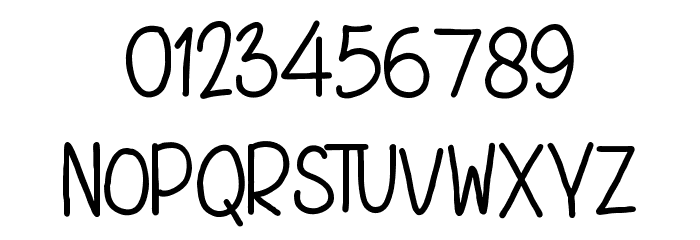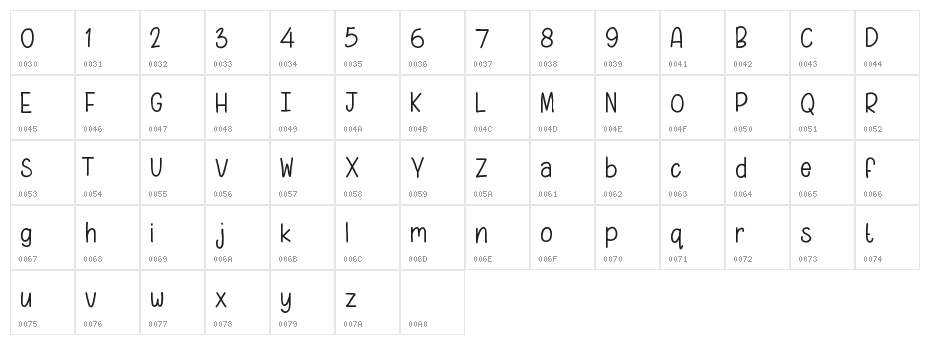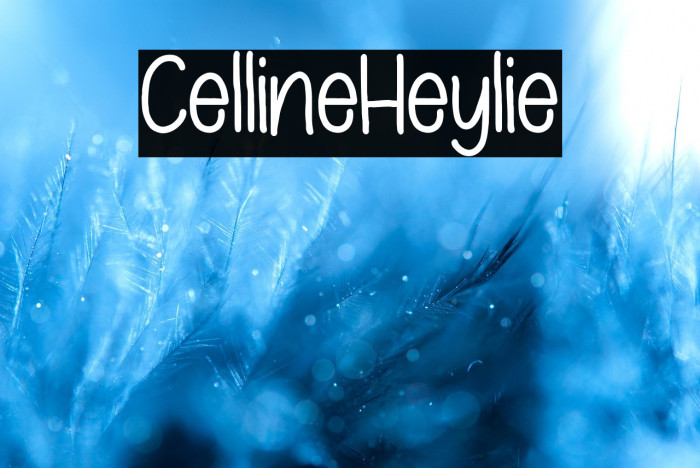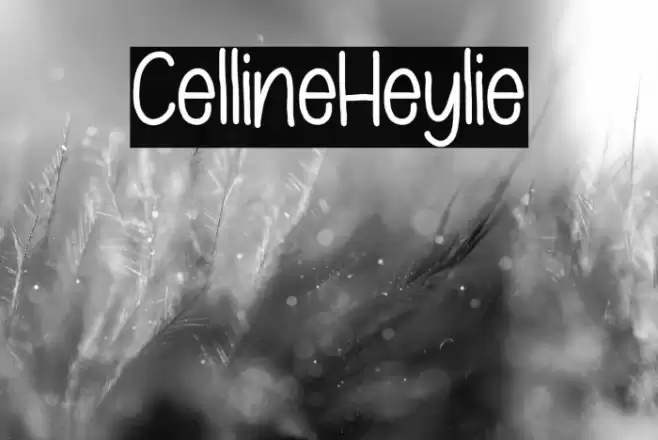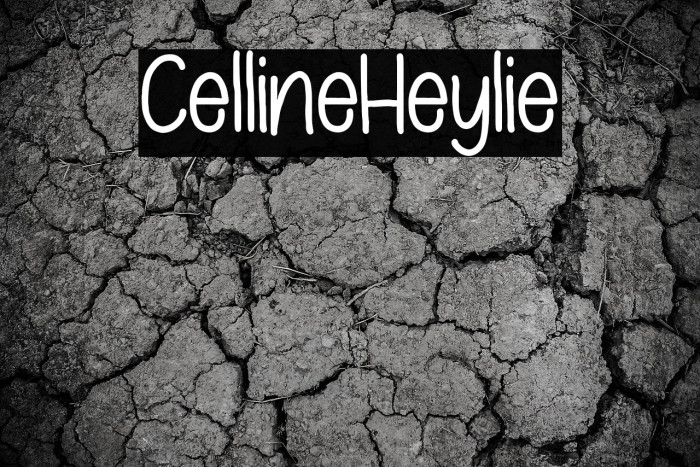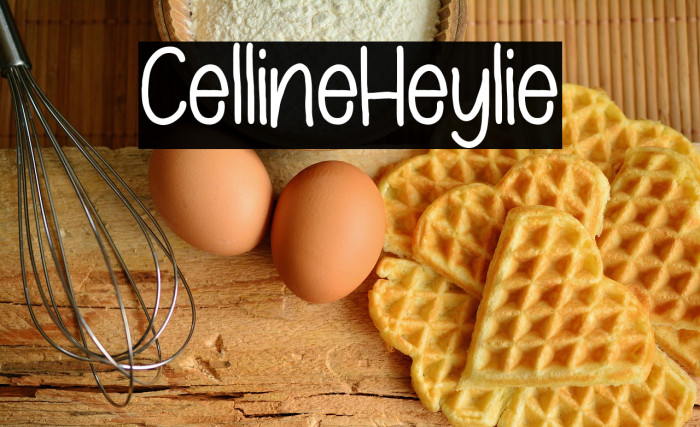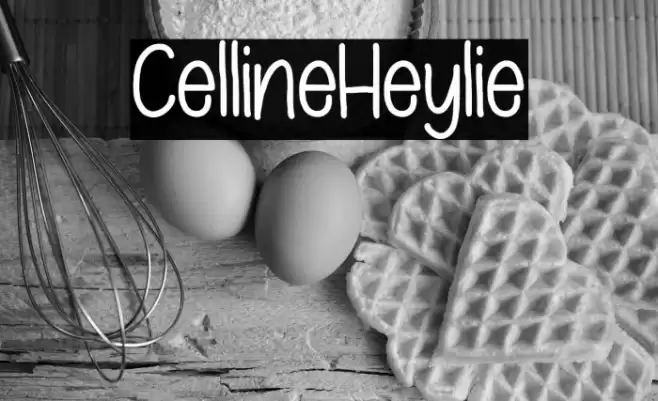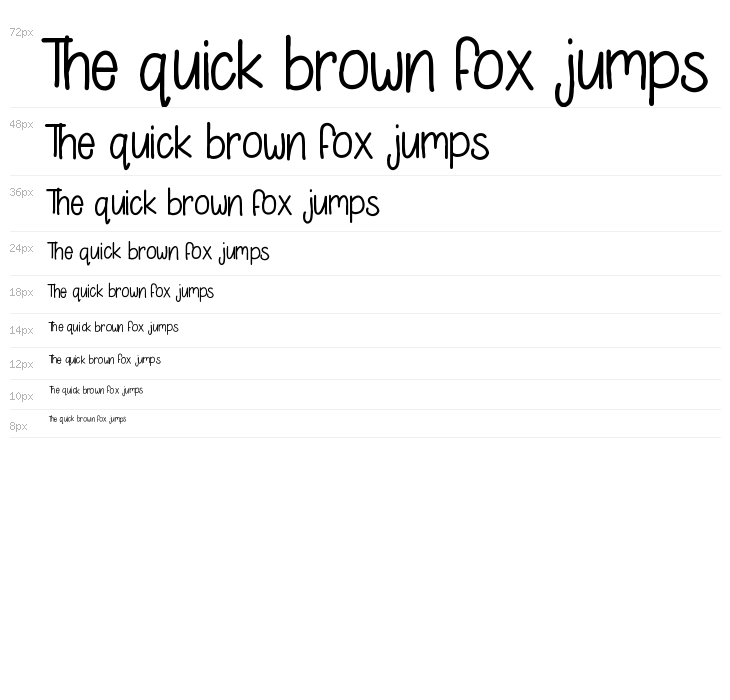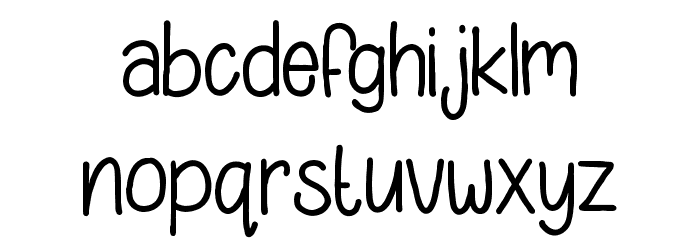
CellineHeylie Font
CellineHeylie Description
This font features a playful and casual handwritten style, characterized by its rounded edges and slightly irregular letterforms. The uppercase and lowercase letters maintain a consistent flow, giving it a friendly and approachable appearance. The numbers and special characters follow the same design principles, ensuring uniformity across all glyphs. Its informal style makes it suitable for projects that aim to convey warmth and personality. The font's design is clean and legible, making it versatile for various applications.
| Use Case | Headlines, Informal text, Branding |
| Proposed Projects | Ideal for children's books, greeting cards, casual branding, and social media graphics. |